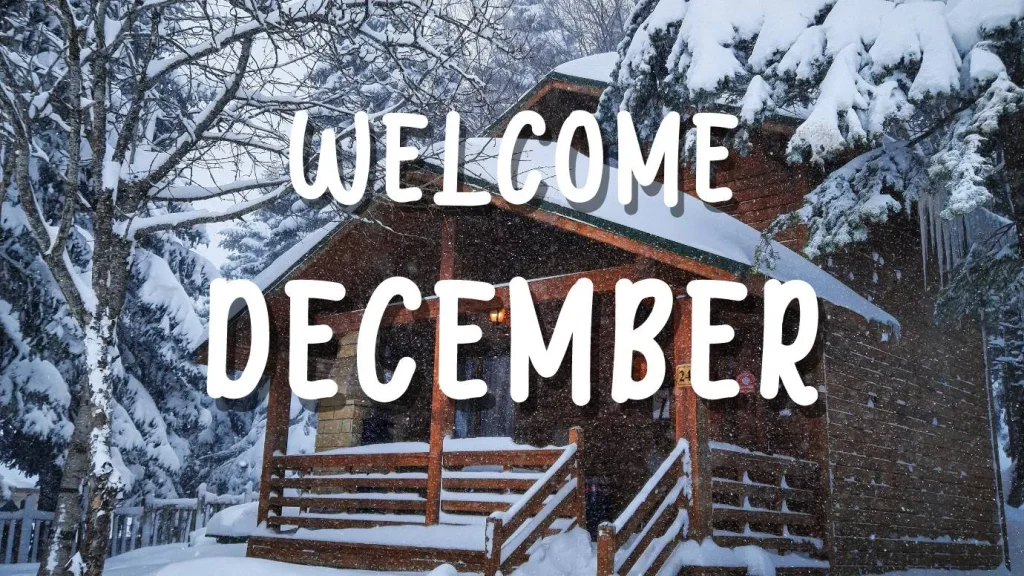
Welcome December Font is a script style that has an amazing design that has great features and well-spaced characters. The font’s free version is available on our site.
The style has great glyphs, this font is supported by many languages. It features 1024 units per em and more than 183 elegant glyphs. The font has uppercase and lowercase letters, it has more than 230 characters. This font works well for creating beautiful logo designs, text styles, and refined textures for any kind of project. The font’s characters have a standard size that can be used to create many designs.
The font has trendy glyphs and characters, that make it a fantastic option for any project that requires a touch of elegance. Additionally, the font features have a large variety of ligatures, lowercase and uppercase characters, and capital letters. This font attracts the attention of the viewer.
This typeface can be used to create stunning and attractive designs. Adding this font to your project will improve the look of your tasks and makes it prominent in front of the client.
Create Attractive Design With Welcome December Font
This script typeface can be used to create a variety of formal banner designs and posters. The finest creation through this wonderful typeface is greeting and invitation cards. You can choose this lovely typeface to create unique projects.
The contemporary typeface is perfect for making HD photography, video editing, and gaming videos. Use this elegant script font for creating wall paintings, comic book covers, theme graphics, and label designs.
It is appropriate for software development, website template designs, cinematic theme designs, and watermarks. Additionally, you may use it to create logos and post on social media.
The typeface can be used to create t-shirts and clothing designs. This typeface can be used by designers to create covers for newspapers and magazines, and more.
It is an amazing style for designing brochures, billboards, newspapers, and much more many advertising agencies and other digital offices also used this style to create unique designs.
| Designer | Andi Moz |
More Details About Welcome December Font
Using this design to make interesting book covers, store names, logos, and websites. The typeface is appropriate for all kinds of projects, including branding initiatives, home furnishings designs, and product branding.
The typeface is used in a variety of projects, such as emails and messages, websites, logos, and more. This typeface is frequently used in numerous projects by designers because of its appealing look.
What is welcome December Font?
Welcome December Font is a script style that has an amazing design that has great features and well-spaced characters. The font’s free version is available on our site.
What is special About the Welcome December Font?
The font has trendy glyphs and characters, that make it a fantastic option for any project that requires a touch of elegance. Additionally, the font features have a large variety of ligatures, lowercase and uppercase characters, and capital letters.